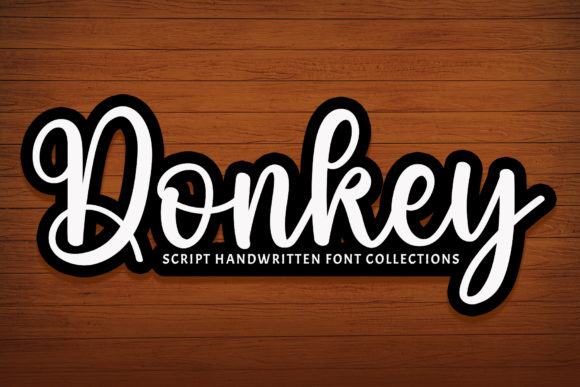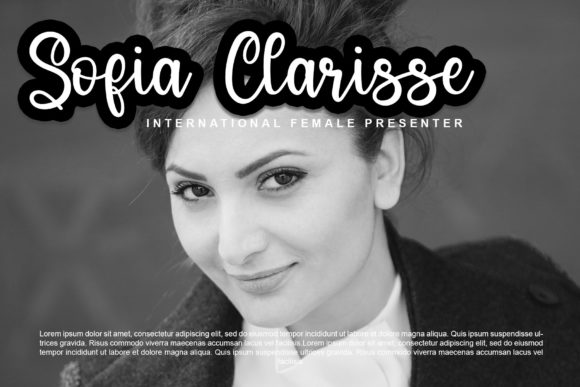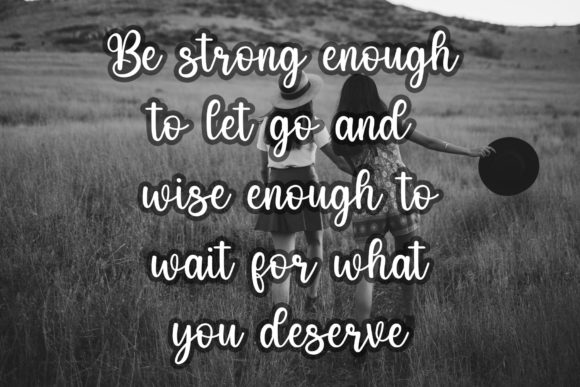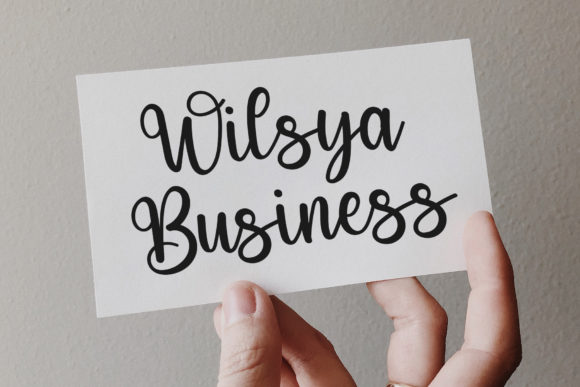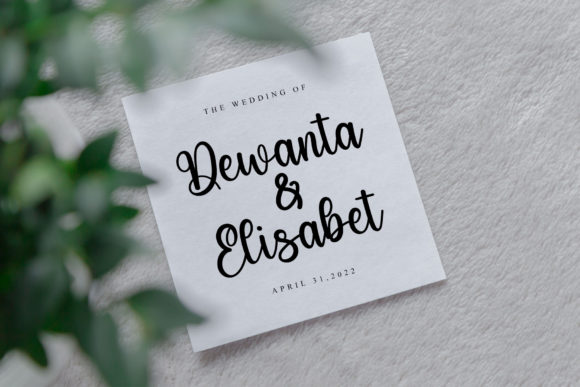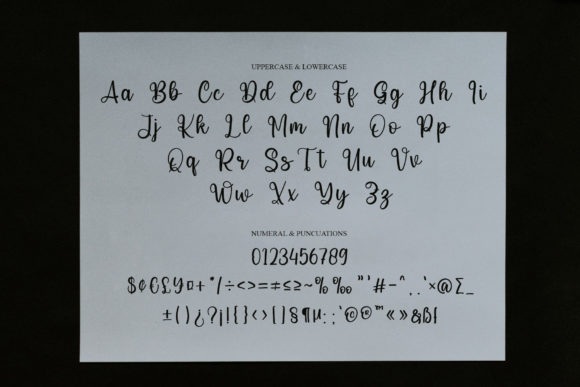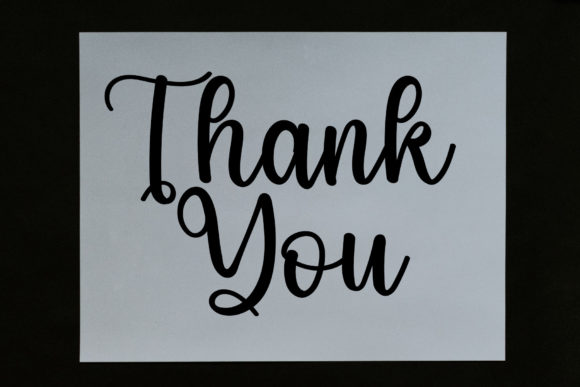
Donkey Font
About Donkey Font
Donkey is a romantic and sweet calligraphy typeface that brings a touch of luxury to your design projects, with characters that dance along the baseline. This font is not just a collection of letters; it’s a visual journey that adds a luxurious spark to your creative endeavors. Additionally, Donkey is PUA encoded, allowing convenient access to a wealth of amazing glyphs and ligatures.
The romantic and sweet qualities of Donkey make it a perfect choice for a range of design applications. Whether utilized in wedding invitations, love-themed projects, or any creative endeavor that calls for a hint of romance, Donkey introduces a distinctive and elegant aesthetic.
The PUA encoding in Donkey enhances its versatility by providing easy access to a variety of unique glyphs and ligatures. This feature empowers designers to personalize and customize the font seamlessly, tailoring it to suit the specific needs and style preferences of their projects.
In summary, Donkey is more than just a font; it’s a romantic and sweet calligraphy typeface that infuses a touch of luxury into your designs. With characters gracefully dancing along the baseline and PUA encoding for convenient access to glyphs and ligatures, Donkey is ready to elevate your creative projects with a sense of elegance and sophistication.